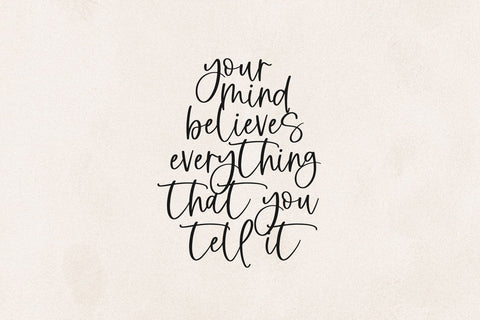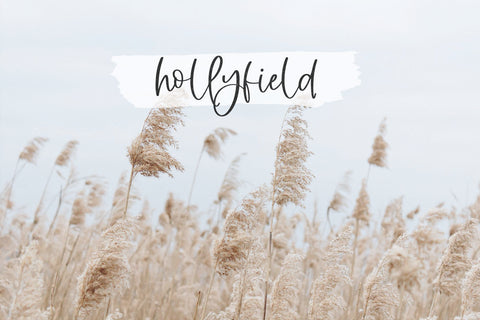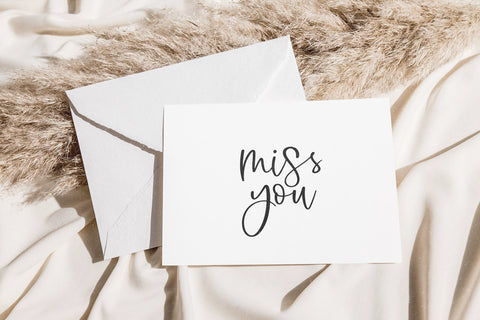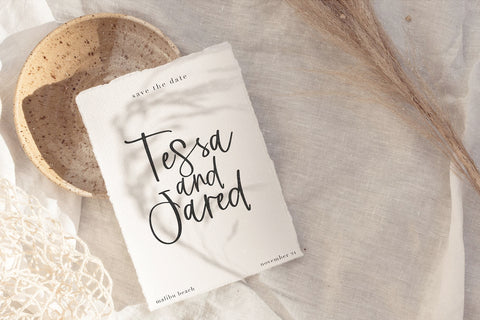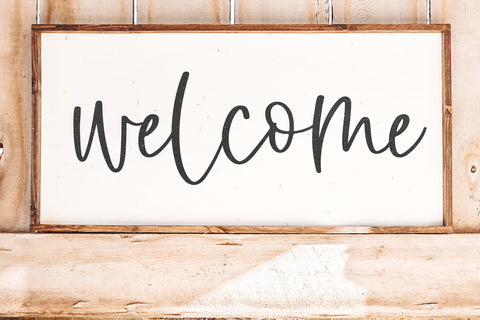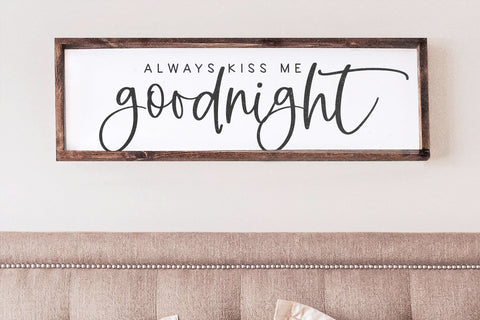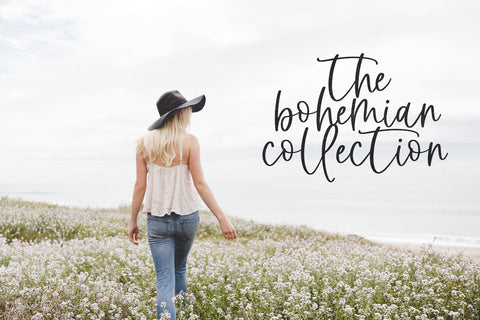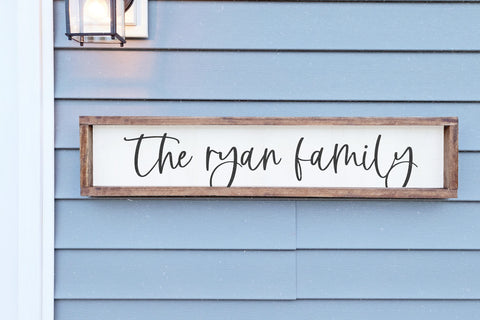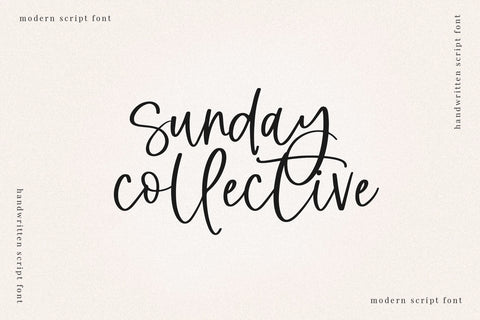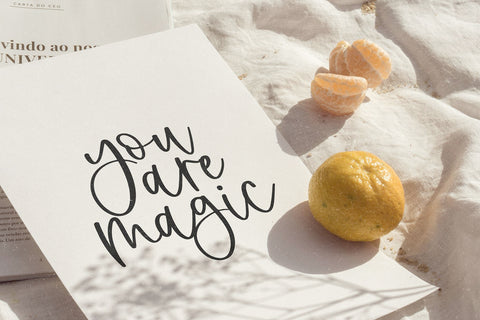
Sunday Collective - Handwritten Script Font
Sunday Collective is a modern handwritten script font.
This font is perfect for wedding decor, invitations, farmhouse signs, branding, logos, svg designs and more!